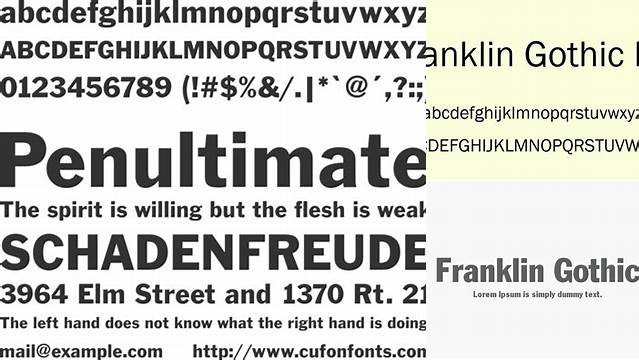
Introduction to Franklin Gothic Book Font
Hey guys! Let's dive into the world of typography with the Franklin Gothic Book font family. This is a timeless classic that has been used in countless designs, from print to digital, and continues to be a favorite among designers. If you're looking for a font that exudes professionalism, clarity, and legibility, Franklin Gothic Book is definitely one to consider. This font family's enduring appeal lies in its simplicity and versatility, making it suitable for a wide range of applications. It's not just a font; it's a piece of design history that you can use in your projects today!
The Franklin Gothic Book font family has a rich history, dating back to its creation by Morris Fuller Benton in the early 20th century. Benton, an American type designer, crafted this typeface for the American Type Founders (ATF) company. His goal was to create a bold, sans-serif typeface that was both functional and aesthetically pleasing. The result was a font that quickly gained popularity and has remained a staple in the design world ever since. The key characteristics of Franklin Gothic Book include its clean lines, even strokes, and a slight emphasis on verticality, which gives it a strong and confident appearance. Its design makes it exceptionally readable in various sizes and formats, which is why it's often used in body text, headlines, and signage. The font's neutrality also makes it a great choice for projects where you want the content to stand out without the typeface itself being too distracting.
What makes the Franklin Gothic Book font family so special is its adaptability. Whether you're working on a corporate report, a website design, or a poster, this font can fit seamlessly into your project. The font family includes various weights and styles, such as regular, italic, bold, and bold italic, offering a wide range of options for creating visual hierarchy and emphasis in your designs. This versatility allows designers to maintain a consistent look and feel across different media, ensuring a cohesive brand identity. For example, you might use the regular weight for body text, the bold weight for headings, and the italic style for captions or quotes. This variety ensures that Franklin Gothic Book can meet the diverse needs of any design project, making it a go-to choice for both experienced designers and those just starting out.
Why Choose Franklin Gothic Book?
So, why should you choose Franklin Gothic Book for your projects? The main reason is its versatility. This font is like the Swiss Army knife of typography – it can handle almost anything you throw at it. Whether it's a corporate report, a sleek website, or eye-catching posters, Franklin Gothic Book fits right in. Its neutral yet strong appearance makes it a perfect choice for projects where readability and clarity are paramount. Plus, the clean lines and balanced letterforms ensure that your text looks professional and polished. In essence, Franklin Gothic Book helps your message come across clearly and effectively, without the typeface overshadowing the content.
Another compelling reason to use Franklin Gothic Book is its legibility. The font is designed with readability in mind, making it an excellent choice for long blocks of text. The letterforms are clear and distinct, which reduces eye strain and makes reading a comfortable experience. This is especially important for projects like books, articles, and websites, where users will be spending a significant amount of time reading. Moreover, Franklin Gothic Book's excellent legibility extends to different sizes and resolutions, ensuring that your text remains readable whether it's displayed on a large screen or printed in a small format. This makes it a reliable choice for a wide range of applications, from large-scale signage to fine print.
Beyond its practicality, Franklin Gothic Book also has a timeless aesthetic appeal. The font's classic design has stood the test of time, remaining a popular choice among designers for over a century. Its clean, unadorned style gives it a sense of simplicity and elegance, making it suitable for both modern and traditional designs. This timeless quality means that your projects will look current and professional, regardless of changing design trends. Furthermore, Franklin Gothic Book's neutrality allows it to pair well with a variety of other fonts, giving you the flexibility to create unique and visually appealing designs. Whether you're aiming for a minimalist look or a more elaborate design, Franklin Gothic Book can serve as a solid foundation for your typographic choices.
Key Features of the Font Family
The Franklin Gothic Book font family boasts several key features that make it a top choice for designers. First off, it includes multiple weights – from regular to bold – giving you flexibility in your designs. This means you can create visual hierarchy and emphasize important elements in your text. For example, you might use the bold weight for headings to make them stand out, while using the regular weight for body text to ensure readability. The variety in weights allows you to maintain a consistent look and feel across different parts of your design, ensuring a cohesive and professional appearance. Having these options available within one font family streamlines the design process and helps create a polished final product.
In addition to the different weights, Franklin Gothic Book also includes italic styles. Italic fonts add a touch of elegance and can be used to create emphasis or contrast within your text. Whether you need to highlight a quote, add a caption, or simply break up the monotony of a block of text, the italic style is a valuable tool. The italic version of Franklin Gothic Book maintains the font's clean lines and legibility, ensuring that it complements the regular styles seamlessly. This makes it easy to incorporate italic text into your designs without sacrificing readability or visual harmony. The inclusion of italic styles enhances the versatility of the Franklin Gothic Book font family, making it suitable for a wide range of design needs.
Another notable feature is the font's exceptional legibility. Franklin Gothic Book is designed with clarity in mind, making it easy to read in various sizes and formats. The letterforms are well-defined, and the spacing is carefully considered to ensure that each character is distinct and readable. This is particularly important for body text, where readers will be spending a significant amount of time reading. The high legibility of Franklin Gothic Book also makes it a great choice for digital applications, where text may be viewed on screens with varying resolutions. Whether you're designing a website, a mobile app, or a print document, Franklin Gothic Book ensures that your text remains clear and easy to read, enhancing the overall user experience.
In conclusion, the Franklin Gothic Book font family is a fantastic choice for anyone looking for a versatile, legible, and timeless typeface. Whether you're a seasoned designer or just starting out, this font can help you create professional and visually appealing designs. Its clean lines, multiple weights, and italic styles make it suitable for a wide range of projects, from corporate reports to websites and posters. Plus, the fact that you can download it for free from reputable sources makes it an accessible option for everyone. So go ahead, give Franklin Gothic Book a try, and see how it can elevate your designs!